Timeless, elegant, and full of personality; that’s why classic fonts never go out of style. Their graceful lines and balanced forms bring sophistication to any design, from refined book covers to high-end brand identities. Whether in print or digital layouts, these fonts prove that great design begins with simplicity and enduring beauty.
Want to find the perfect font to evoke a timeless vibe in your next project? Explore our top picks below.
Key Takeaways:
- Classic fonts convey elegance and trust, making them ideal for brands or designs that value heritage and sophistication.
- Their timeless structure enhances readability and balance, ensuring visual comfort across print and digital media.
- Using classic fonts builds lasting visual identity, connecting modern creativity with traditional design principles.
21 Classic Fonts That Redefine Timeless Design
Adobe research shows that typography can boost positive emotional response by up to 13%. Every font carries its own character, and classic fonts stand out for their elegance and tradition. They add warmth, depth, and lasting beauty to any design. Here are our top picks of classic-style fonts that capture timeless sophistication.
1. La Gagliane
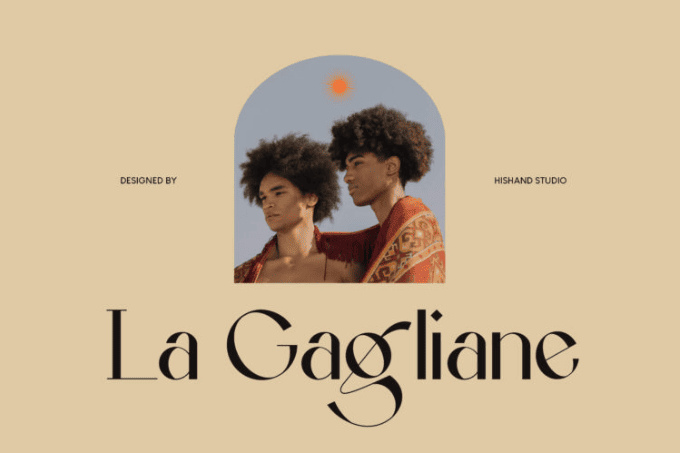
La Gagliane is a sophisticated sans-serif font that exudes royal charm. Its prominent thick and thin dynamic creates a classical feel, perfect for historical novels, fashion magazines, or beauty product names.
2. El Pacre
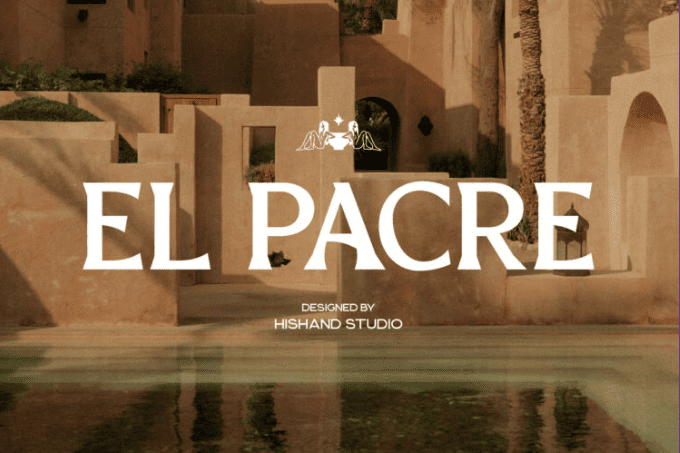
El Pacre represents luxury with confidence. It takes the rigid, display font base with thick lines, and puts a little flair at the ends. El Pacre exhibits a unique flow despite its rigid design.
3. La Garpia
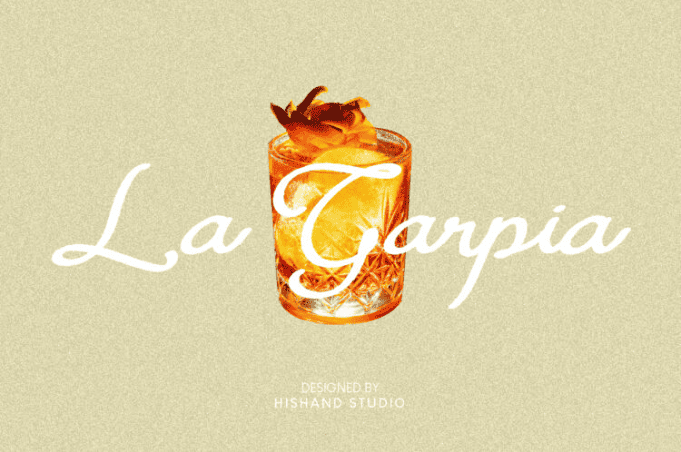
La Garpia brings a graceful, carved aesthetic reminiscent of Renaissance scripts. Ideal for museum graphics, art galleries, or classical concerts, it captures the harmony of culture and craftsmanship.
4. De Martega
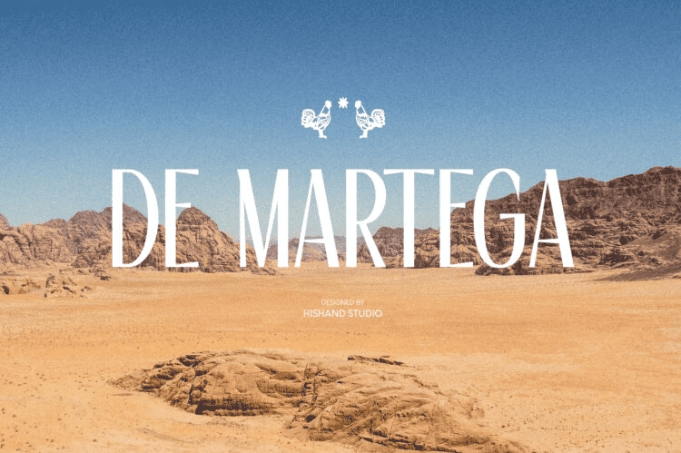
De Martega is the embodiment of historical typography, just with a hint of modern aesthetics. This tall serif font cleverly imbues warmth despite its rigid looks.
5. Corigo
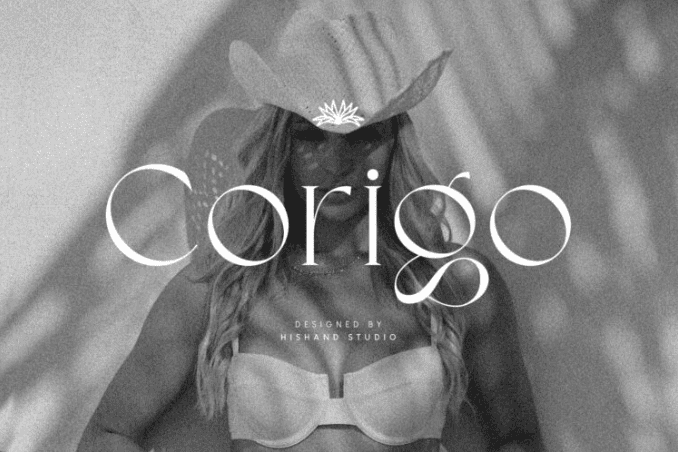
Among our classic fonts, Corigo displays a luxurious serif font that blends really well with flowy lines. While refined and sophisticated, Corigo still offers a cute and chic aura.
6. Mapalie
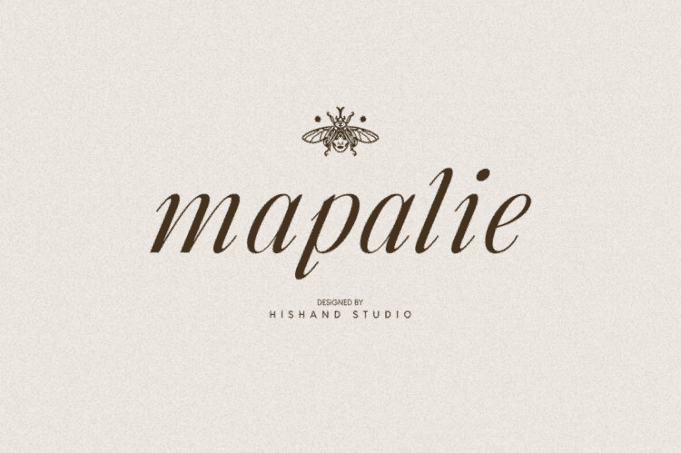
Mapalie is a native italic serif font. This font has the elements of a script typeface, but with more spaced, readable letters. This subtle touch evokes a sophistication uniquely.
7. Paline
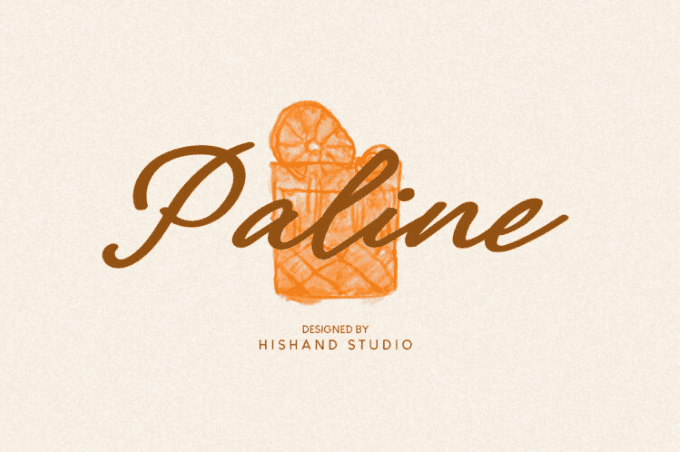
Our classic cursive font, Paline, artistically combines sophistication with tropical aesthetics. With its unique appearance, Paline is versatile, covering historical and recreational concepts.
8. Macala De Club
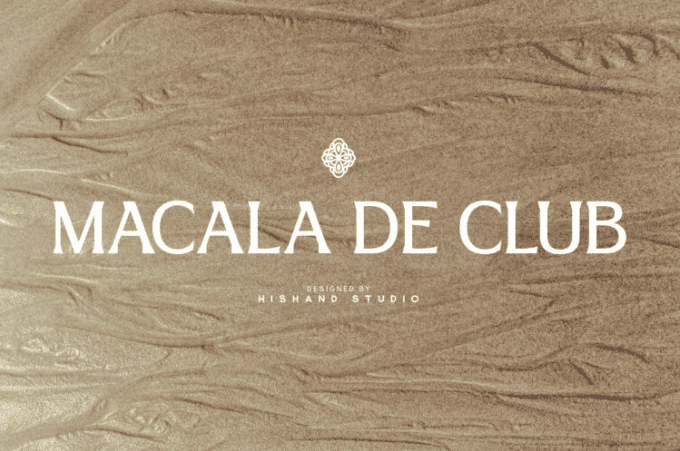
Macala De Club equips the sharply edged display letterforms with elegant details. This font is perfect for you who seek simplicity but appreciate proportionate ornaments.
9. Pamlla
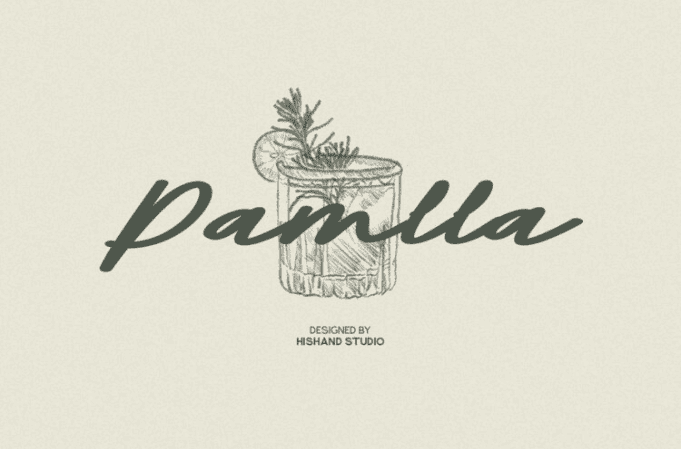
Pamlla is a thick script font with natural ink marks. This font ditches any sophistication and leans more towards warm, natural handwritten feels. If you want to bring an intimate, personal brand, Pamlla is the one.
10. Amarieta
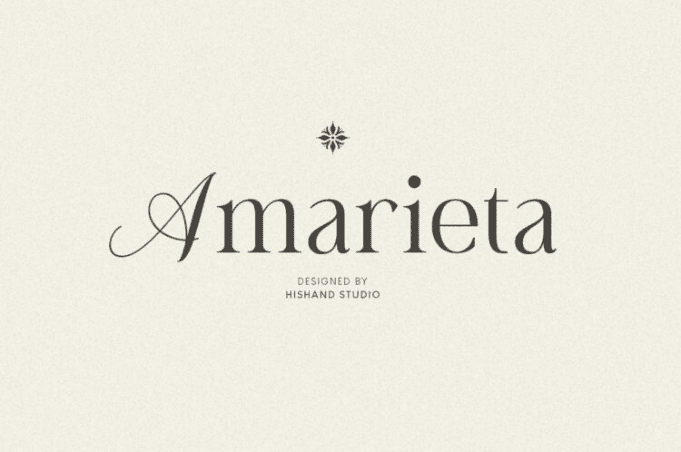
Amarieta is a hybrid font, where a classy serif font is mixed with a graceful script font. As one of the most classic serif fonts, Amarieta sprinkles some chic and femininity in its letters.
11. Bulgatry
As one of the classic fonts, Bulgatry takes its sophistication to another level. This font doesn’t shy away from expressive, wilder ornaments. Bulgatry presents wide letters and more carefree swashes.
12. Royal & Caikes
Royal & Caikes gives a playful twist to classic font styles. This tropical serif font is perfect for showcasing delicious products or creating ads that appeal to younger audiences.
13. Lamarkie
While in the classic font category, Lamarkie tries to break free with its modern take. But of course, this font still maintains its classy, refined look. Even spreading wings to more fun and playful concepts.
14. Qanoar
Qanoar is a modern serif font that boasts its penmanship. Its gentle proportions, flowy strokes, and artsy alternates are the perfect combo for fashion magazines or minimalist layouts.
15. El Molaco
El Molaco has a familiar look that instantly elevates your product’s value. This elegant classic font exudes luxury and old-money elegance, ideal to convey heritage, exclusivity, and prestige.
16. Oleragie
Oleragie mixes two unique concepts, luxury and ethnic. This dynamic serif font merges slender proportions with subtle serif curls. It’s excellent for a brand that wants to appear cultured and modern at once.
Which of These Classic Fonts Fits Your Next Design?
Classic fonts remind us that elegance never fades. From timeless serifs to graceful cursives, each typeface carries its own story, ready to enrich your design with heritage, emotion, and a sense of lasting sophistication.